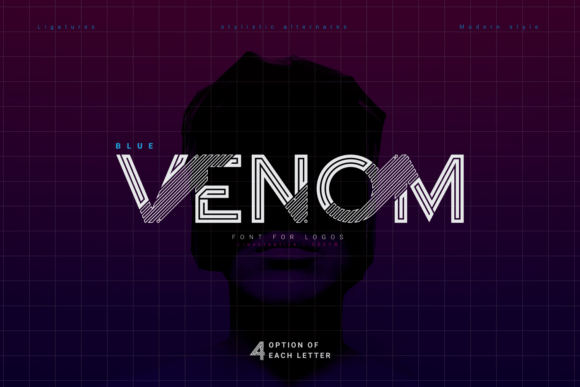
What is Blue Venom Font?
Blue Venom is a modern, cutting-edge typography that checks all the right boxes. Each letter is cleverly cut into two parts: the first consists of three labyrinthine combined lines, and the other is a diagonal cut line. When combined, these two parts form a stunning, one-of-a-kind letter. The font comes with four character choices for letters, two for numbers, and is equipped with Ligatures (OpenType feature) – all included in one font.
- ✨ Unique and modern design that’s sure to turn heads
- ✅ Four character choices for letters and two for numbers, giving you plenty of creative freedom
- ✅ Ligatures (OpenType feature) for added typographic flair
While Blue Venom Font is an excellent choice, there are a few things to keep in mind:
- ⚠️ Some users may find the font’s uniqueness overwhelming or difficult to read in large blocks of text
- 🤔 Limited use cases for very formal or traditional designs, as the font’s modern style may not fit the bill
According to the font’s creators, Blue Venom was inspired by the intricate patterns and shapes found in nature. The designers wanted to create a font that was both modern and timeless, with a unique twist that would set it apart from more traditional typographies.
Q: Is Blue Venom Font suitable for body text?
A: While Blue Venom Font is stunning, it’s best suited for headlines, titles, and short blocks of text. Its uniqueness may make it difficult to read in large blocks of text.